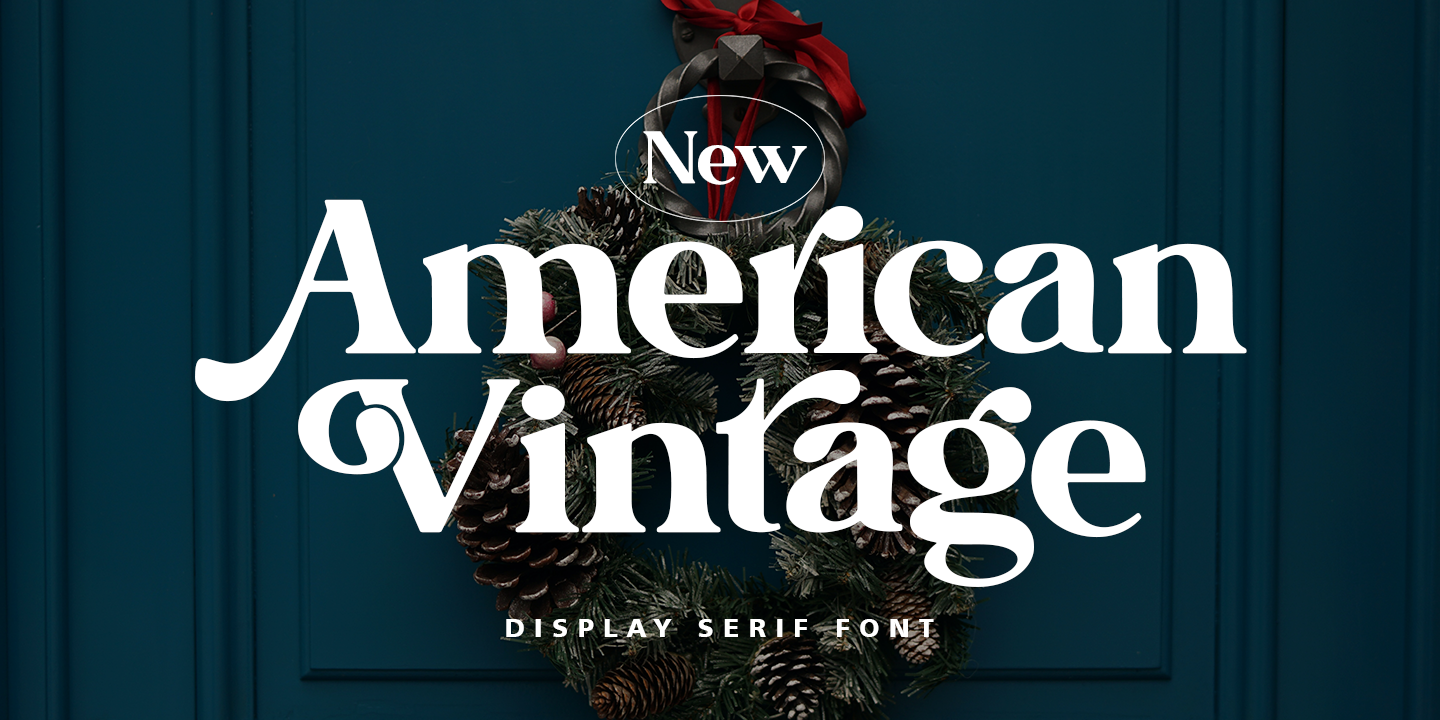
New American Vintage Font is perfect for heritage brand identities, classic American diner signage, vintage motorcycle logos, retro advertising campaigns, historical museum materials, traditional barbershop branding, classic car show posters, Americana-themed restaurants, and nostalgic social media content. This authentic typeface brings timeless American heritage and vintage charm to both digital and print design applications.
New American Vintage Font is exciting because it captures the essence of classic American craftsmanship and nostalgic authenticity, making it an exceptional choice for designers who want to evoke the golden age of American design with genuine vintage appeal. Its carefully crafted letterforms and traditional proportions provide the perfect combination of historical accuracy and contemporary functionality, ensuring your projects communicate American heritage, vintage quality, and timeless excellence that resonates with audiences seeking authentic Americana experiences.
The New American Vintage Font family includes heritage weight variations and vintage elements, featuring light, regular, and bold weights with complementary distressed styles, classic ligatures, and traditional American decorative flourishes. Each style maintains consistent vintage aesthetics while offering flexibility for different heritage applications, allowing designers to create nostalgic visual systems that reflect classic American values and vintage craftsmanship.
Whether you're designing for heritage brands, vintage businesses, or Americana projects, New American Vintage Font Free Download delivers authentic vintage appeal and classic American sophistication that connects with audiences seeking genuine nostalgic experiences. This premium typeface offers designers the historical charm and vintage elegance needed to create designs that communicate American tradition, vintage craftsmanship, and heritage excellence effectively. The font's classic character makes it perfect for vintage branding, heritage campaigns, and Americana applications where authentic vintage credibility is essential. Download New American Vintage Font today and honor your creative projects with genuine American sophistication and vintage typography excellence that defines heritage design standards.